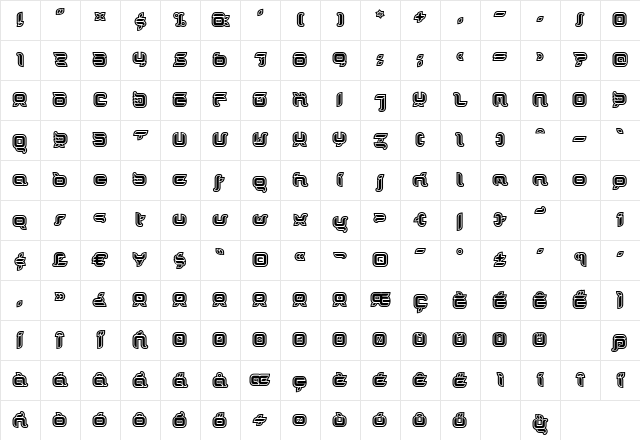
DorisOrangeOutline Medium Free Font
DorisOrangeOutline Medium
Complete DorisOrangeOutline Medium glyph index. Displaying only characters natively supported by DorisOrangeOutline Medium font.
Design Context for DorisOrangeOutline
DorisOrangeOutline is built around its visual character rather than neutral utility - its distinctive forms are designed to make an impression at display sizes.
Font Pairing: Pair with a clean neutral sans-serif for body copy to let DorisOrangeOutline's character lead without overwhelming the composition.
Pro Tip: Use DorisOrangeOutline exclusively at display sizes - it was designed to be seen, not read at length. Let a neutral companion handle body copy.